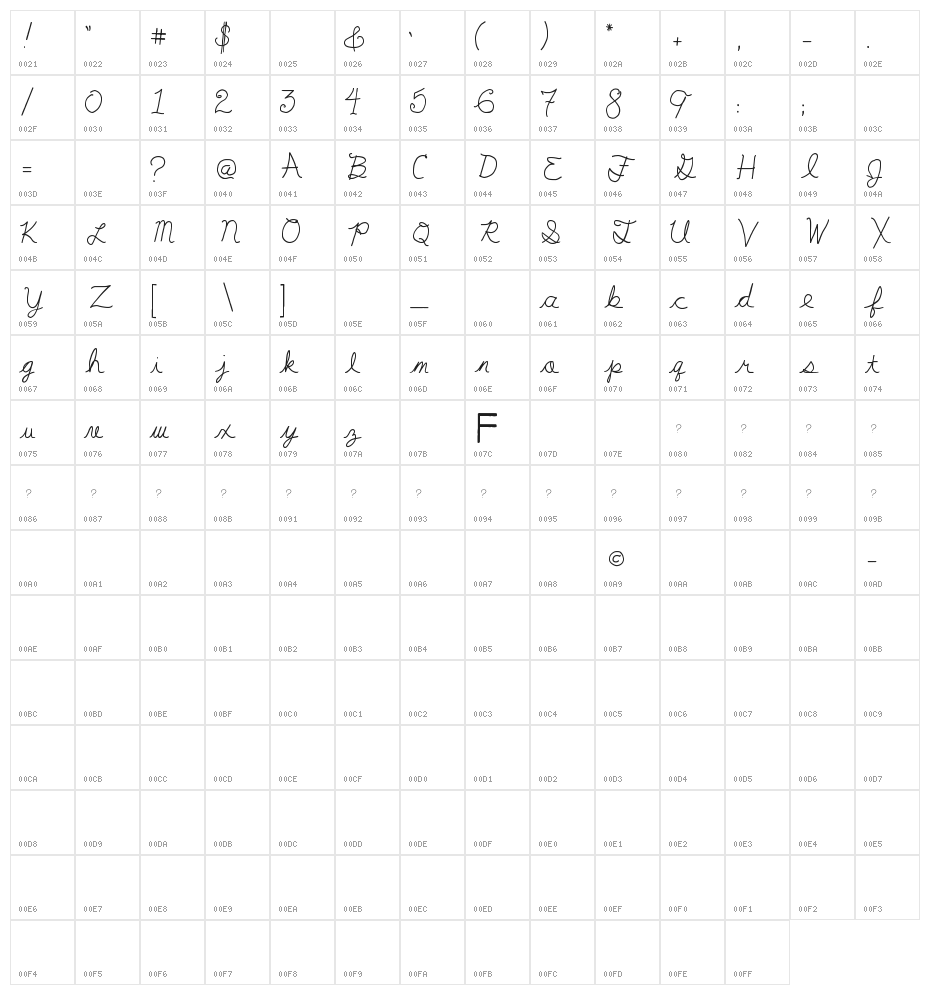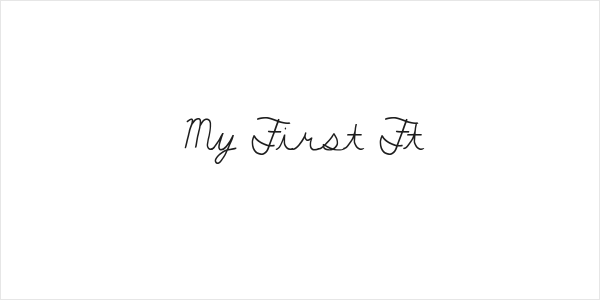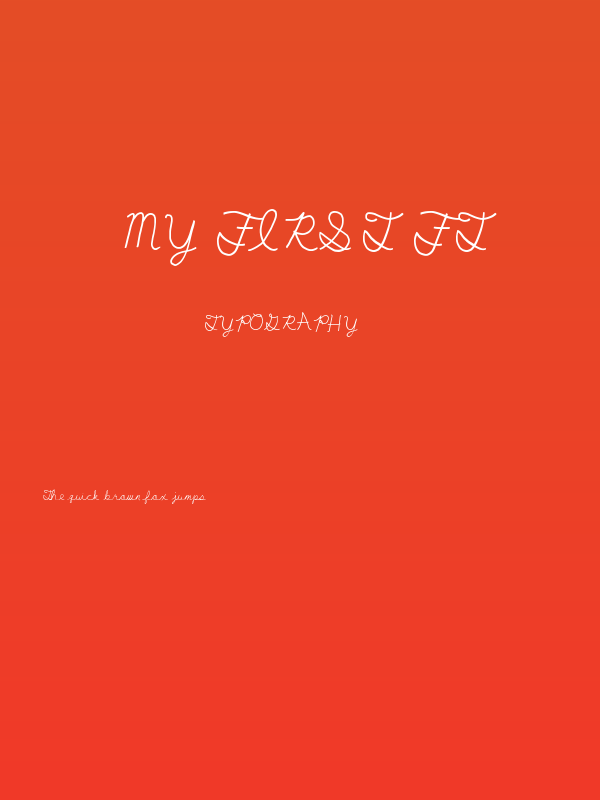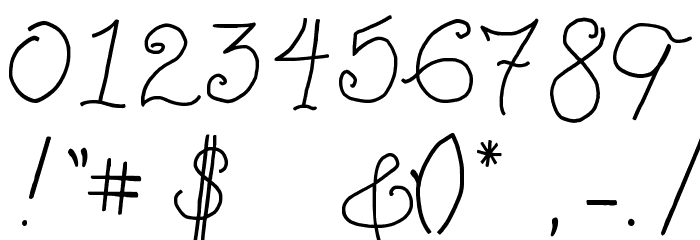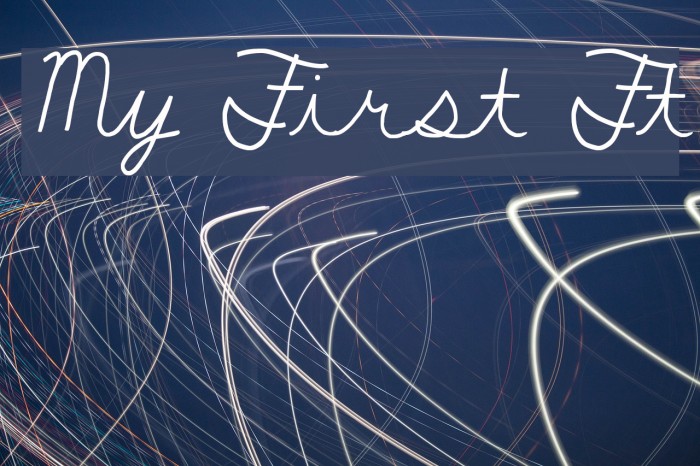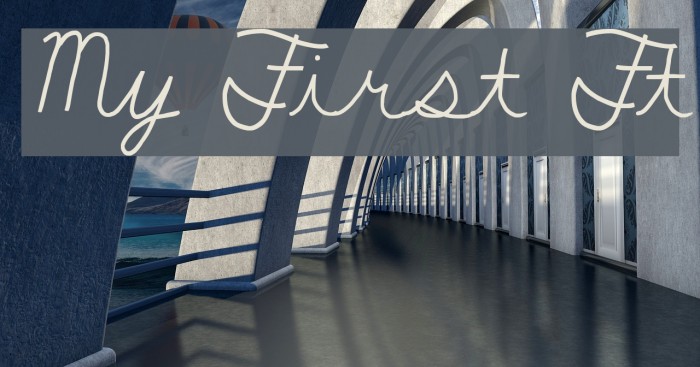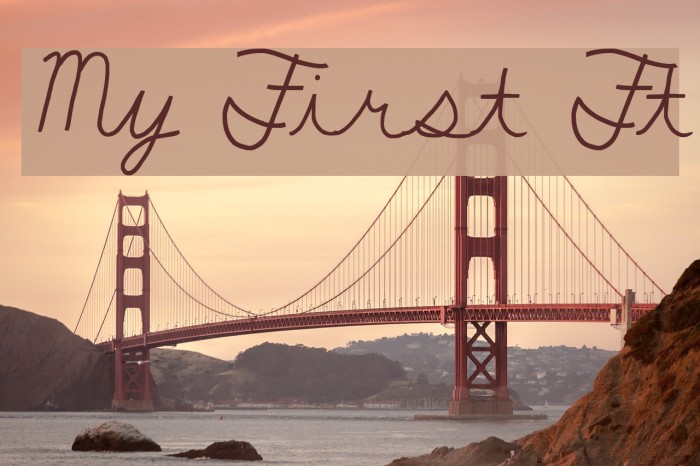
My First Ft Font
My First Ft Description
This font features a playful and casual script style, characterized by its flowing, cursive letterforms. The uppercase letters are slightly more structured, with a whimsical touch that adds a sense of movement and energy. The lowercase letters maintain a consistent flow, enhancing the handwritten feel. The numerals are clear and legible, maintaining the same playful style as the alphabet. Special characters are integrated seamlessly, ensuring versatility in various design contexts. The overall appearance is friendly and approachable, making it suitable for projects that require a personal touch.
MY-FIRST-FT UPPERCASE
MY-FIRST-FT LOWERCASE
MY-FIRST-FT OTHER CHARS
| Proposed Projects | Ideal for greeting cards, invitations, personal branding, and creative projects that require a friendly and approachable aesthetic. |